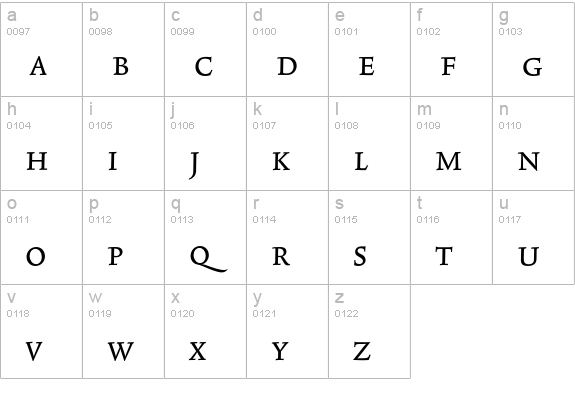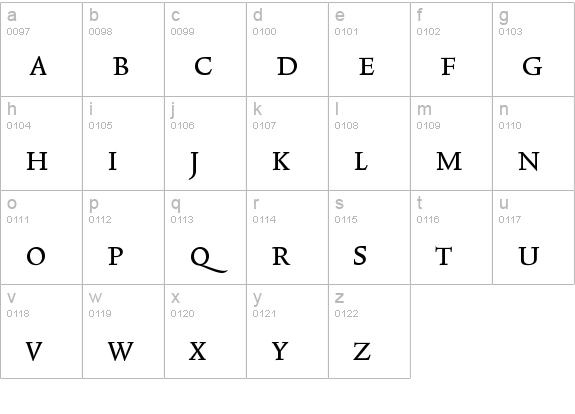
TriniteNo2-RomanWideExp font is a visually stunning typeface that exudes elegance and sophistication. Its wide and expansive letterforms make a bold statement, commanding attention with their refined presence. This font is the perfect choice for projects that require a touch of grandeur, such as high-end branding, editorial designs, or luxurious invitations. Its clean lines and sharp edges lend a modern yet timeless feel, making it versatile for both traditional and contemporary applications. What sets TriniteNo2-RomanWideExp font apart is not only its exquisite design but also its accessibility. This font is available for free, allowing designers and creatives to effortlessly incorporate its beauty into their work without any financial constraints. To obtain this font, simply visit FontsMarket.com, where you can freely download TriniteNo2-RomanWideExp and explore a vast collection of other high-quality fonts. With its availability at FontsMarket.com, this font becomes easily accessible to anyone looking to elevate their designs with a touch of sophistication. TriniteNo2-RomanWideExp font is a testament to the power of design and the importance of accessibility. Whether you're a professional designer or a DIY enthusiast, this font is a valuable addition to your creative toolkit, ensuring that you can effortlessly bring your visions to life without compromising on style or budget.